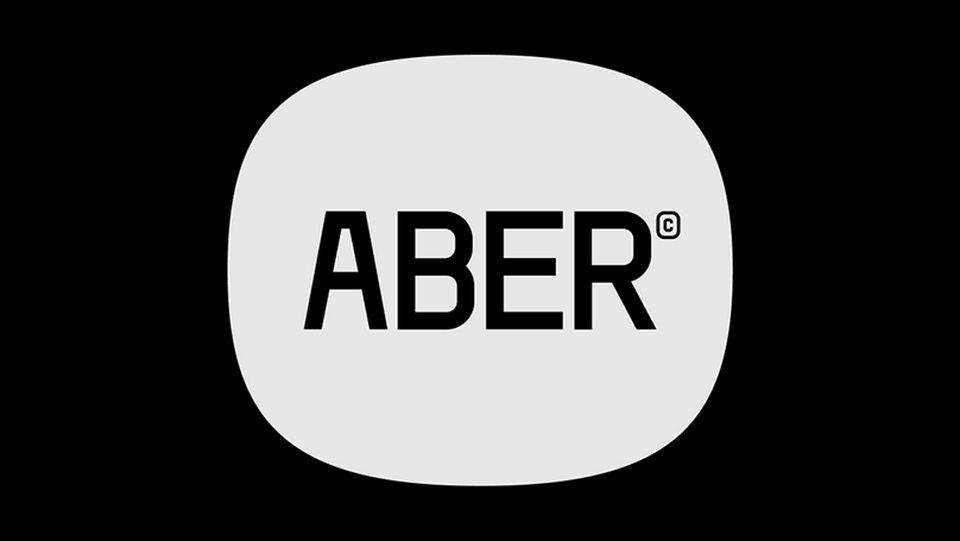
Download Aber font, a geometric monospaced typeface. Smooth corners are mixed with subtle angles to make Abel a strong, legible typeface ideally suited for a wide range of applications.
Designer: Tom Robin Karlsson